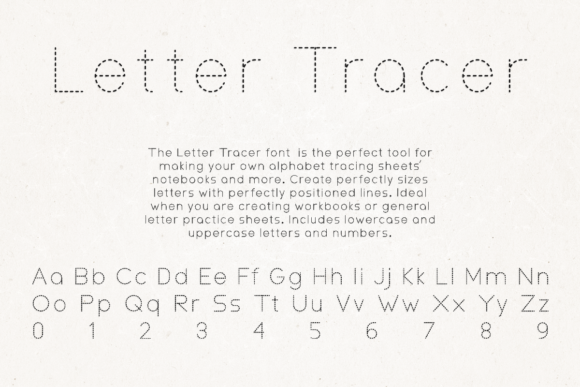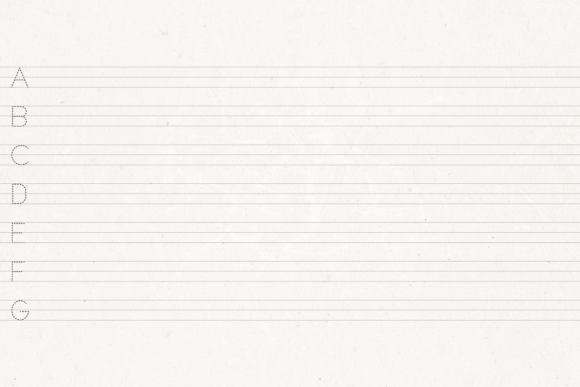
Letter Tracer Font
About the Letter Tracer Font
Get ready to be inspired by Letter Tracer Font, a fresh and dynamic typeface for modern creators. The Letter Tracer font is the perfect tool for making your own alphabet tracing sheets, notebooks and more. Create perfectly sized letters with perfectly positioned lines. Ideal when you are creating workbooks or general letter practice sheets.
Its clear, structured forms make Letter Tracer particularly well-suited for educational materials, children’s books, and projects requiring a clean, legible sans-serif. Use it effectively for headlines, short text blocks, or even as a decorative element in logos. However, avoid using it for body text or large blocks of continuous reading; its simplicity might prove monotonous over longer passages.
The font’s personality is straightforward and friendly. It pairs well with playful script fonts like Pacifico for a whimsical feel, or a contrasting geometric sans-serif like Montserrat for a more modern approach. For a sophisticated balance, consider pairing it with a classic serif such as Garamond.
Letter Tracer’s clean lines and even spacing make it ideal for branding projects aimed at younger audiences or those requiring a sense of approachability and clarity. Its versatility ensures it also works well in simple packaging designs or posters with short, impactful messages.